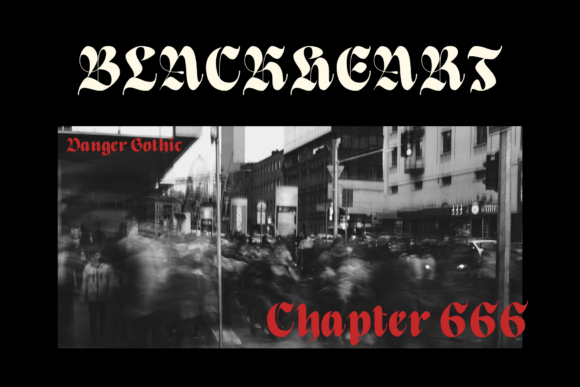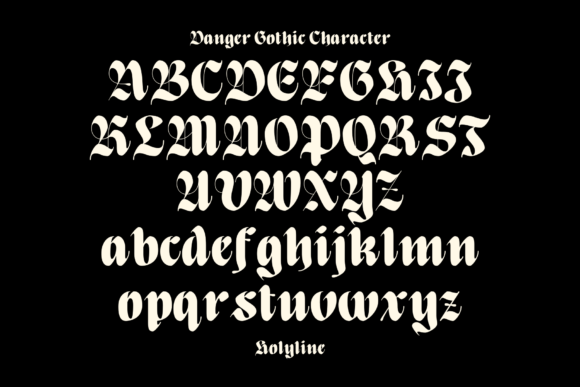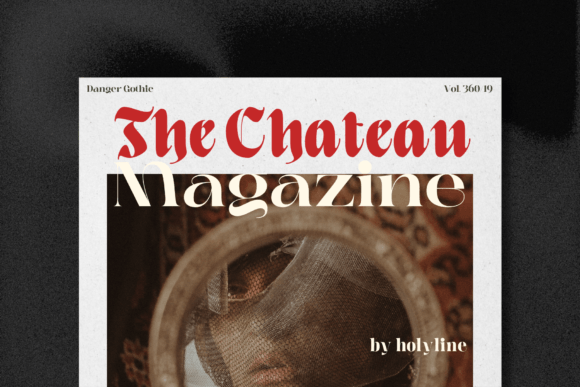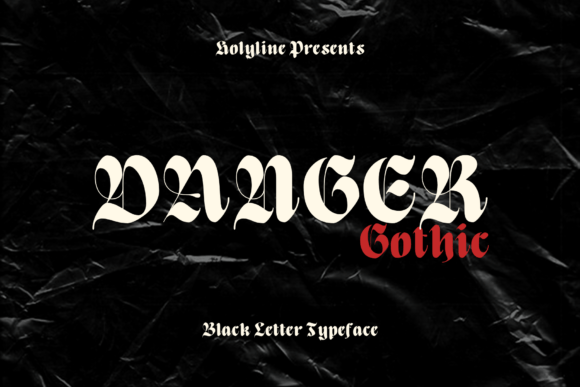
Introduction to Danger Gothic Font
Danger Gothic is a casual black letter typeface.
This font comes with a modern and unique shape inspired by the Old English style It’s very unique, playful, elegant, and very easy to combine with your design style.